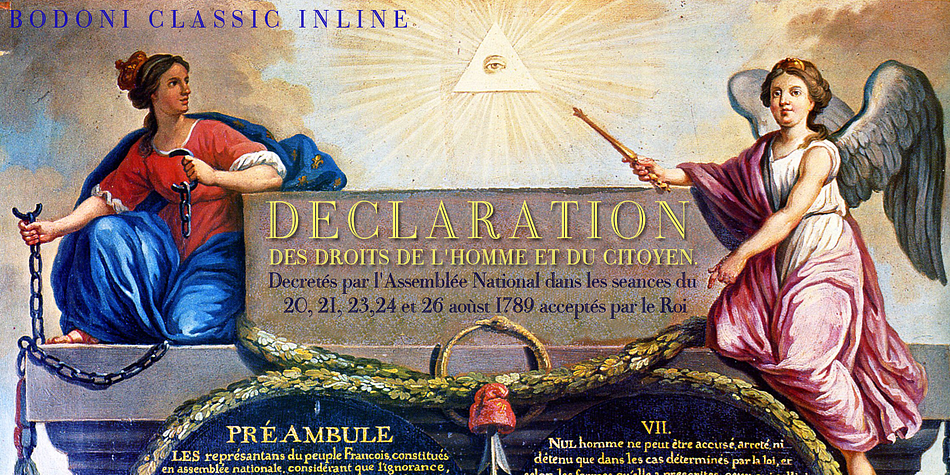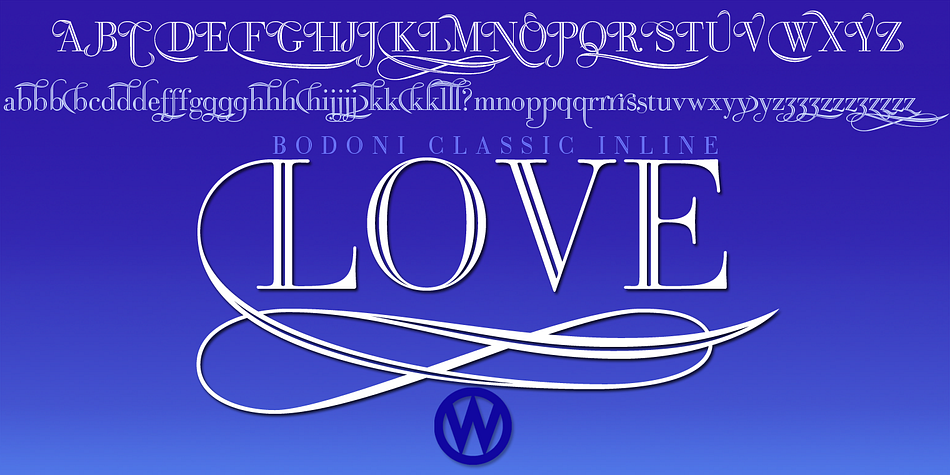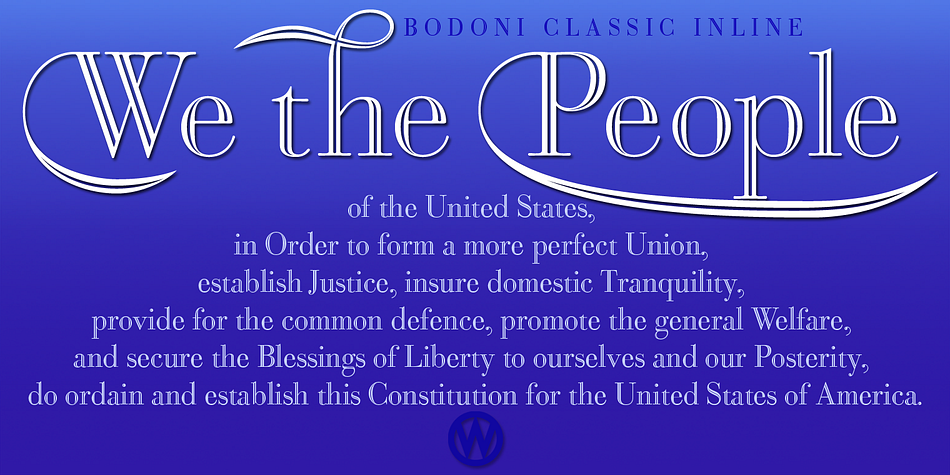
Bodoni Classic Inline is a display serif font published by Wiescher-Design.
Bodoni Classic Inline is a very elaborate extension of my Bodoni Classic family.
The font has 5 different swashes for each capital letter, diverse swashes for lowercase letters and a full set of ligatures, oldstyle and normal numerals, all together 669 glyphs.
This Inline font is good for all kind of official looking documents and of course goes together well with my forever growing Bodoni Classic family. Your Bodonian type-designer Gert Wiescher